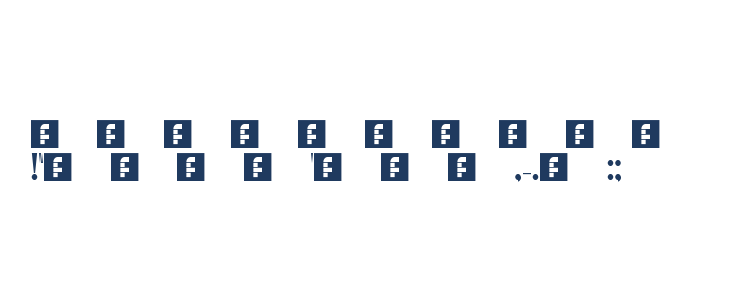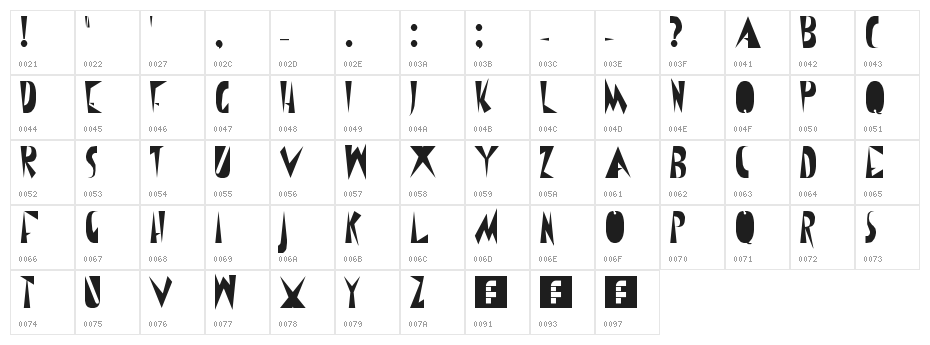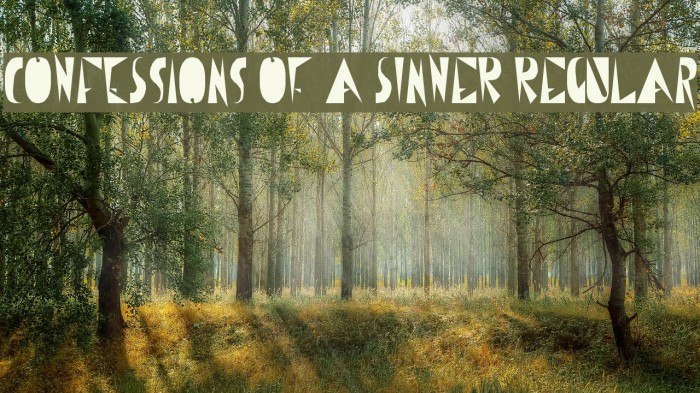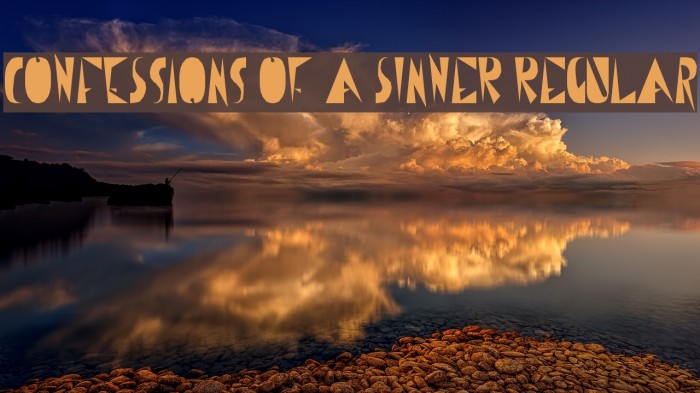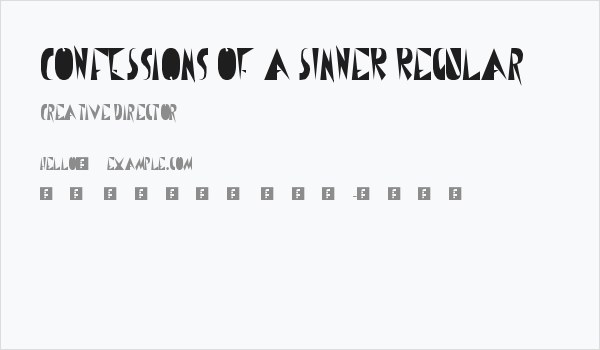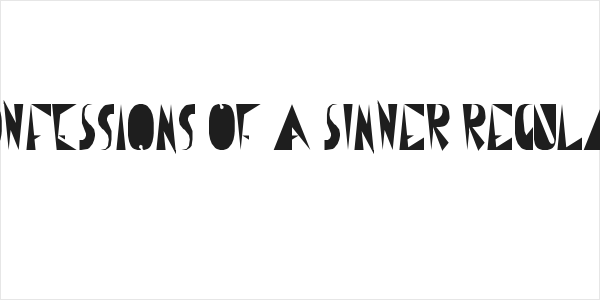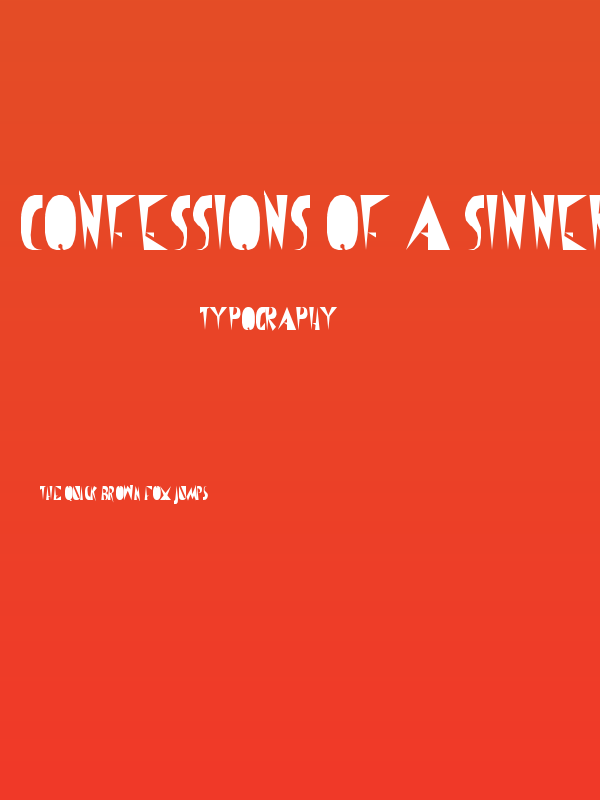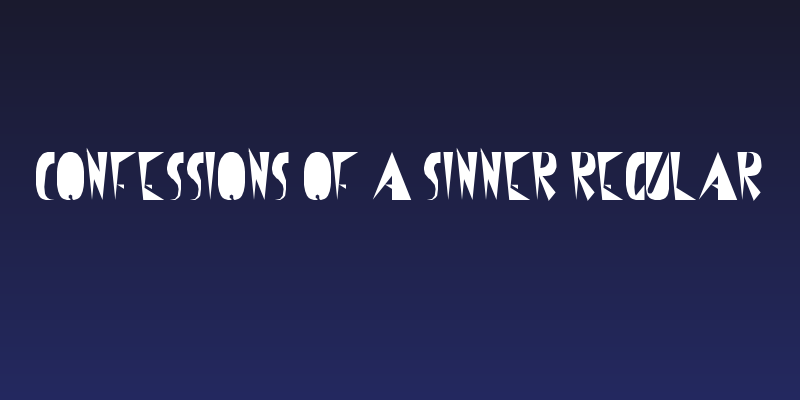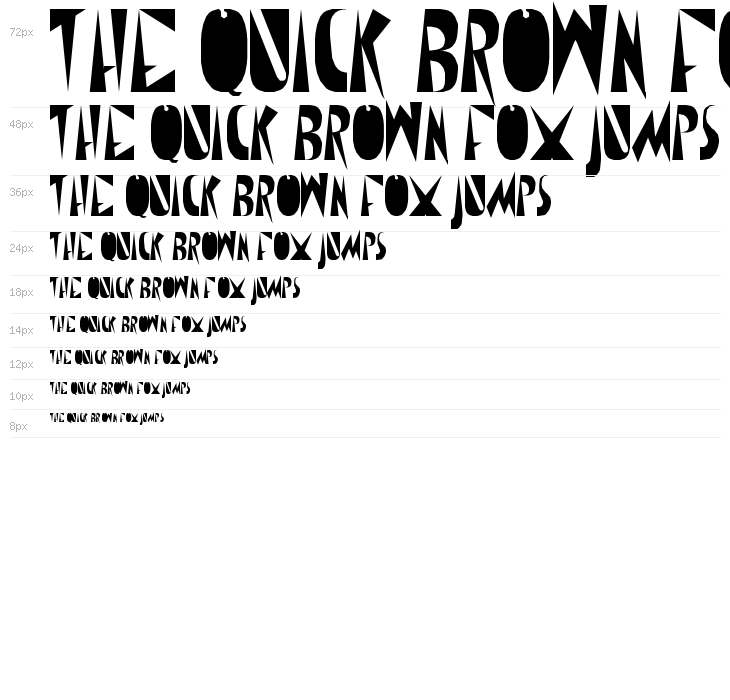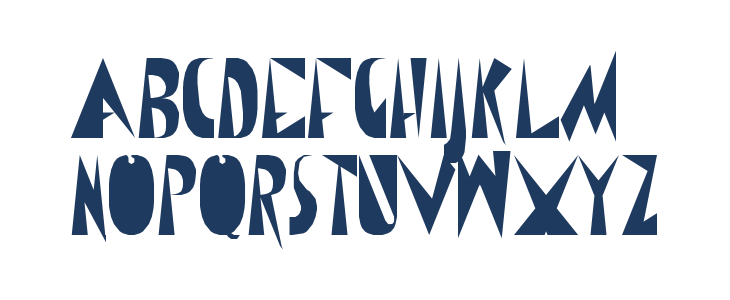
CoNfEsSiOnS oF a sInNeR Regular Font
CoNfEsSiOnS oF a sInNeR Regular Description
This font features a bold and striking design with sharp, angular edges and a geometric style. The uppercase letters are particularly distinctive, with exaggerated points and a sense of movement that gives them a dynamic appearance. The lowercase letters maintain this angular theme, creating a cohesive look across the typeface. The numbers and special characters are equally bold, ensuring consistency throughout. This font's unique style makes it ideal for attention-grabbing designs, where a strong visual impact is desired.